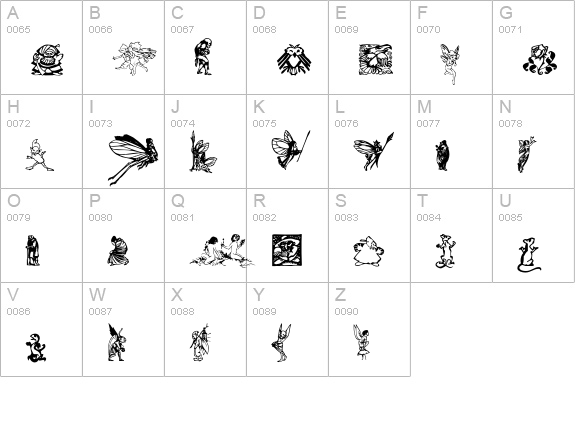
Faerie Font Details
Introducing Faerie font, a whimsical and enchanting typeface that is sure to transport you into a realm of magic and wonder. With its delicate curves and graceful strokes, this font captures the essence of the mystical creatures that inspired its creation. Whether you're designing a fairy tale book cover, crafting an ethereal logo, or adding a touch of enchantment to your digital creations, Faerie font is the perfect choice. What sets Faerie font apart is not only its captivating design, but also the fact that it is available for free download at FontsMarket.com. Yes, you read that right - this extraordinary font can be yours without spending a dime. We believe that creativity should be accessible to all, and by offering Faerie font for free, we hope to inspire and empower designers, writers, and dreamers to bring their visions to life. With its extensive character set, Faerie font provides versatile options for your typography needs. From lowercase and uppercase letters to numerals, punctuation marks, and special characters, this font offers a complete toolkit to express your imagination. Its seamless compatibility with both print and digital platforms ensures that your creations will shine in any medium. So go ahead, let your imagination take flight with Faerie font. Download it for free at FontsMarket.com and explore the limitless possibilities that this enchanting typeface has to offer. Embark on a journey into the world of magic and fantasy, where the words you write and the designs you create will captivate and inspire all who encounter them. Let Faerie font be the key that unlocks the door to a realm of boundless creativity.